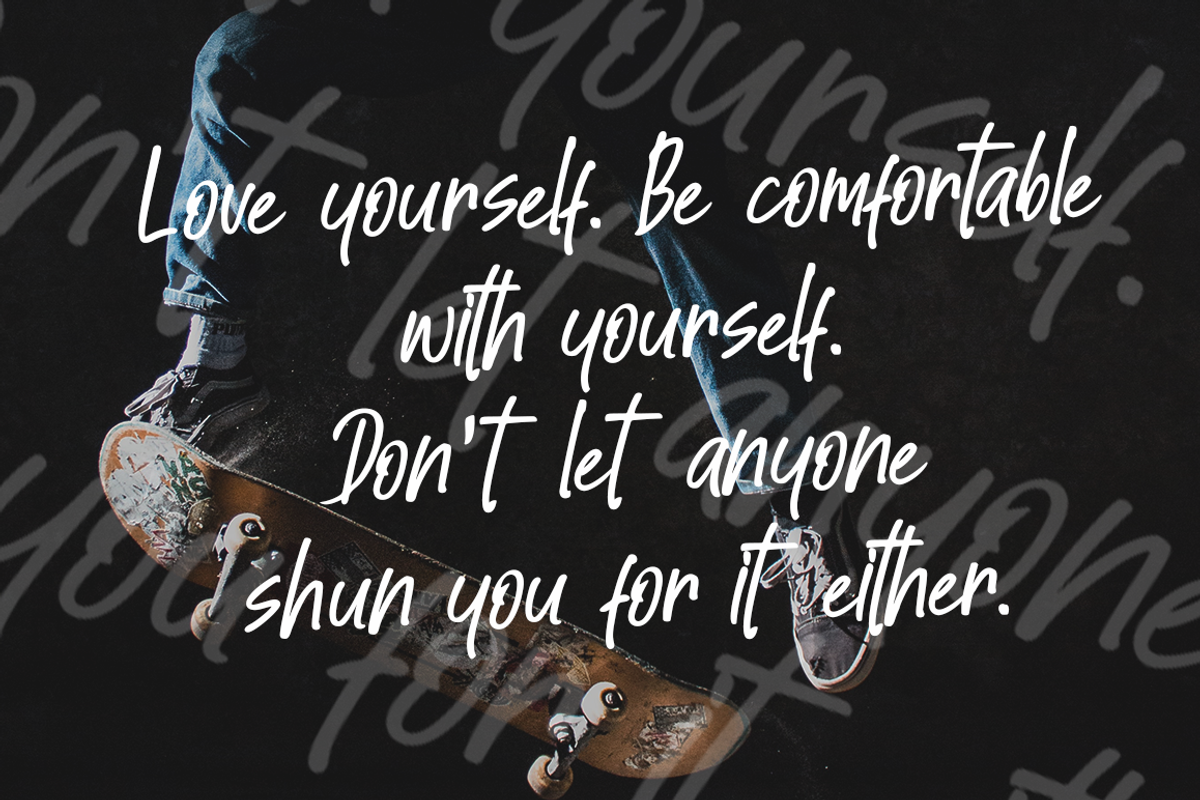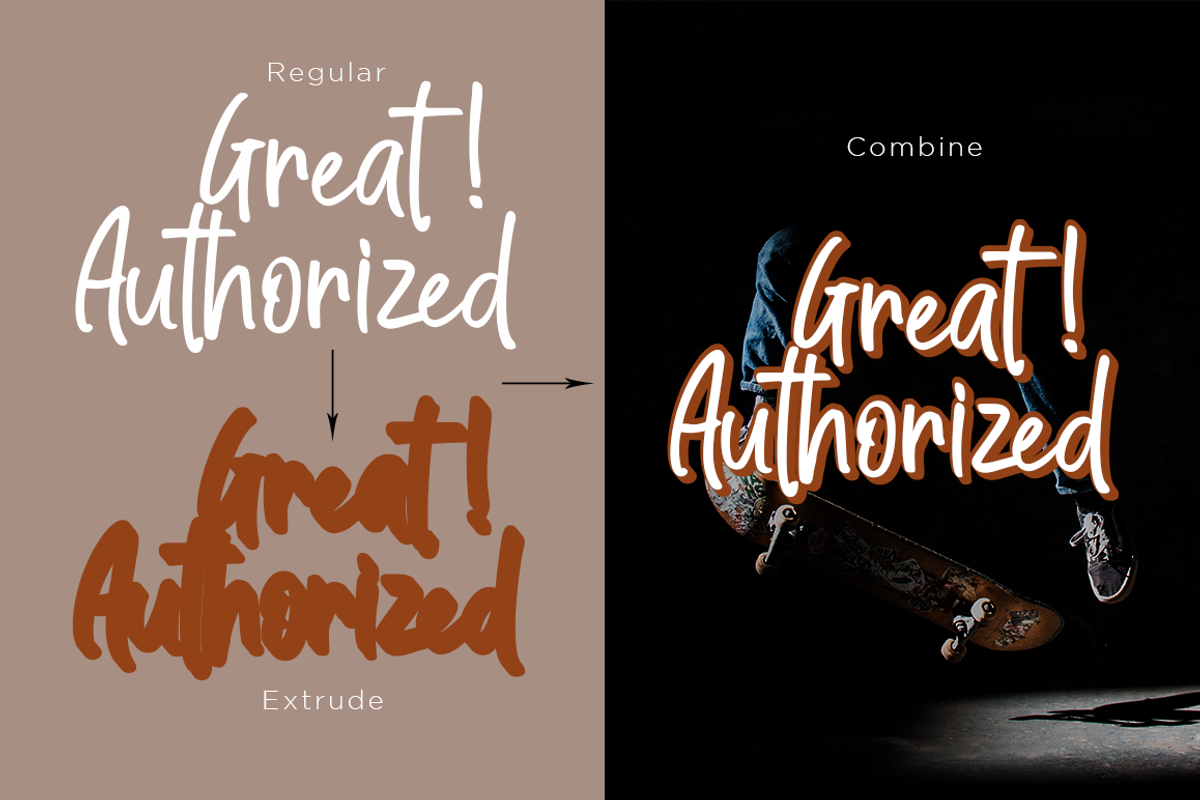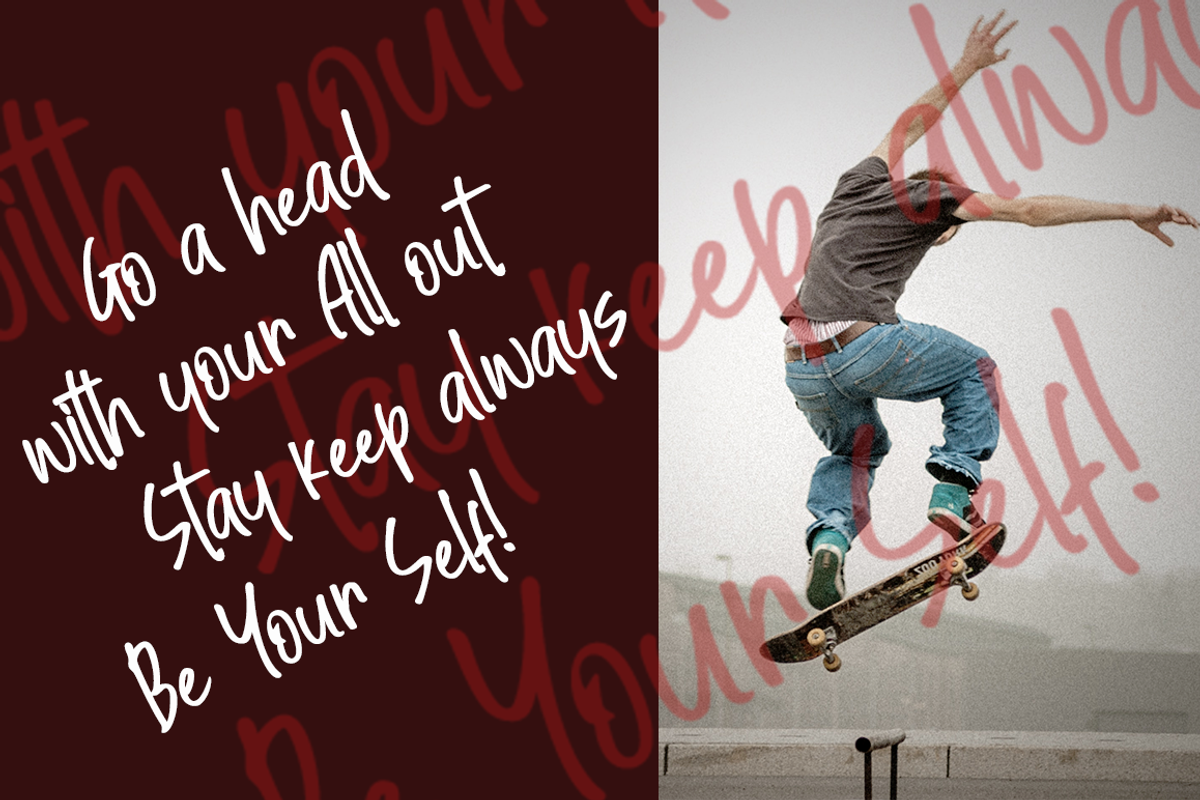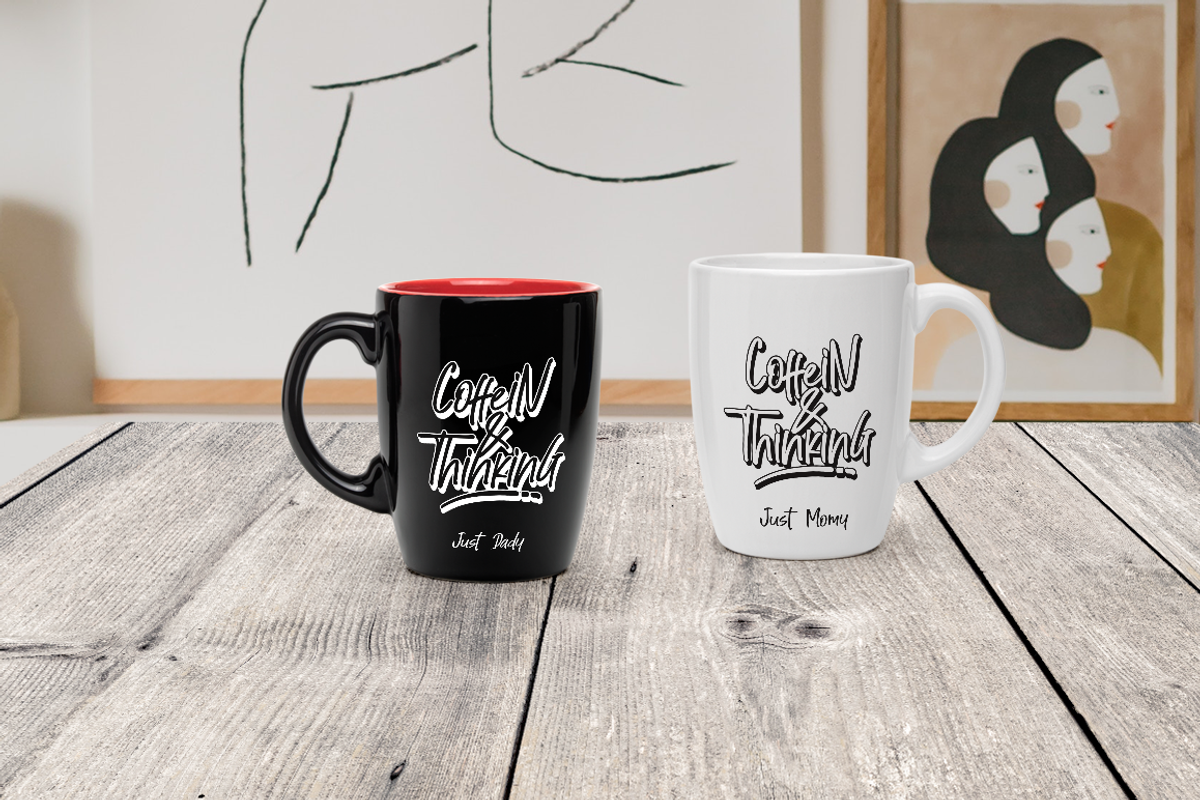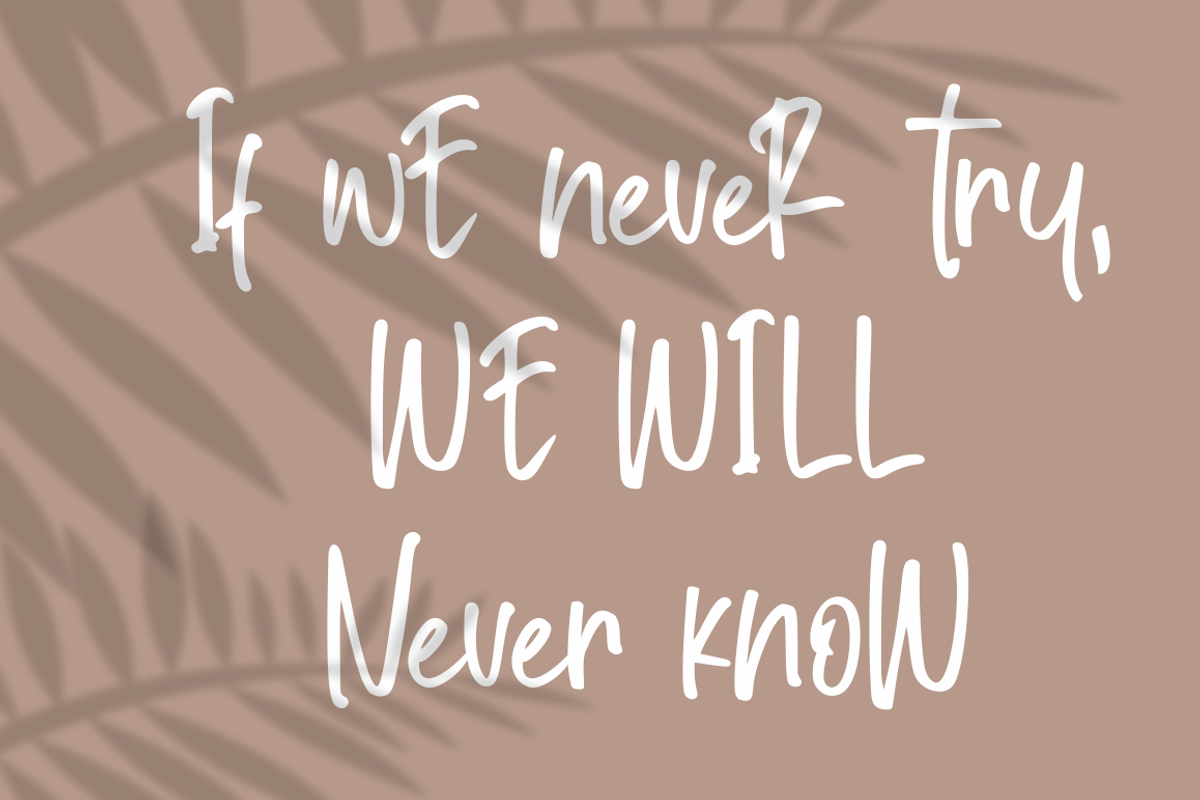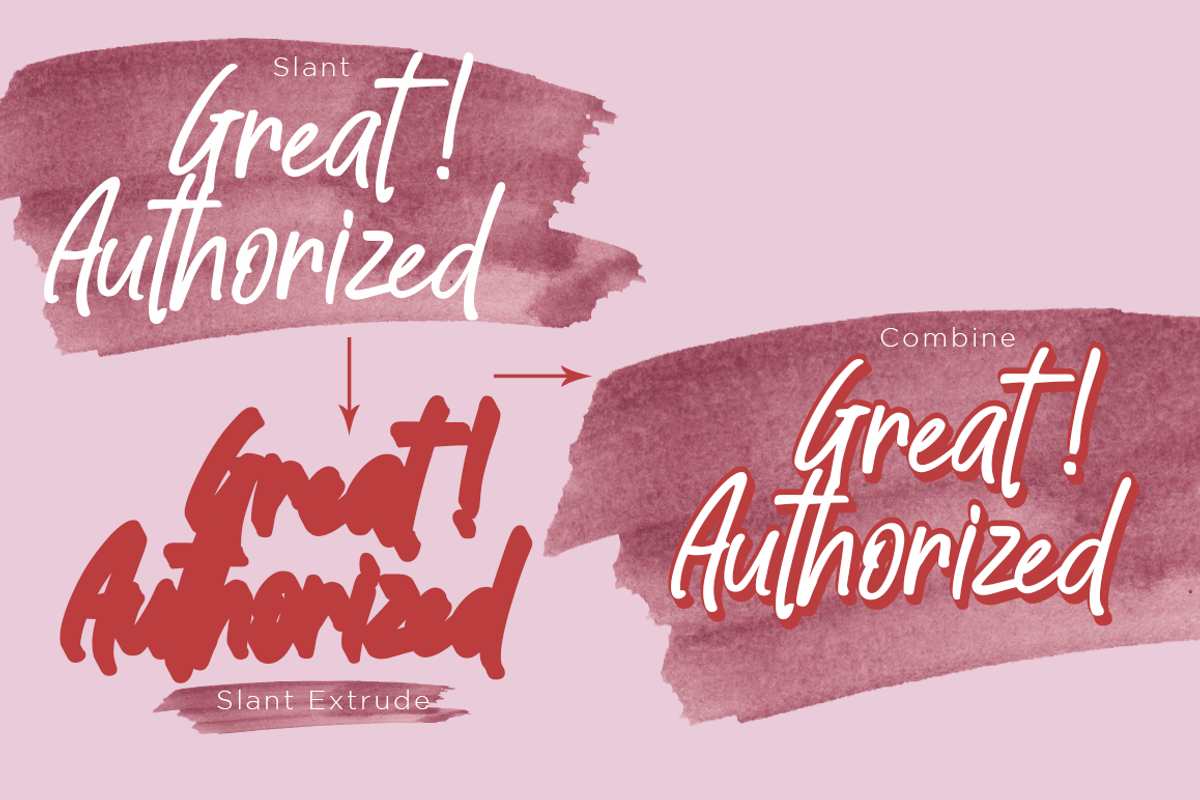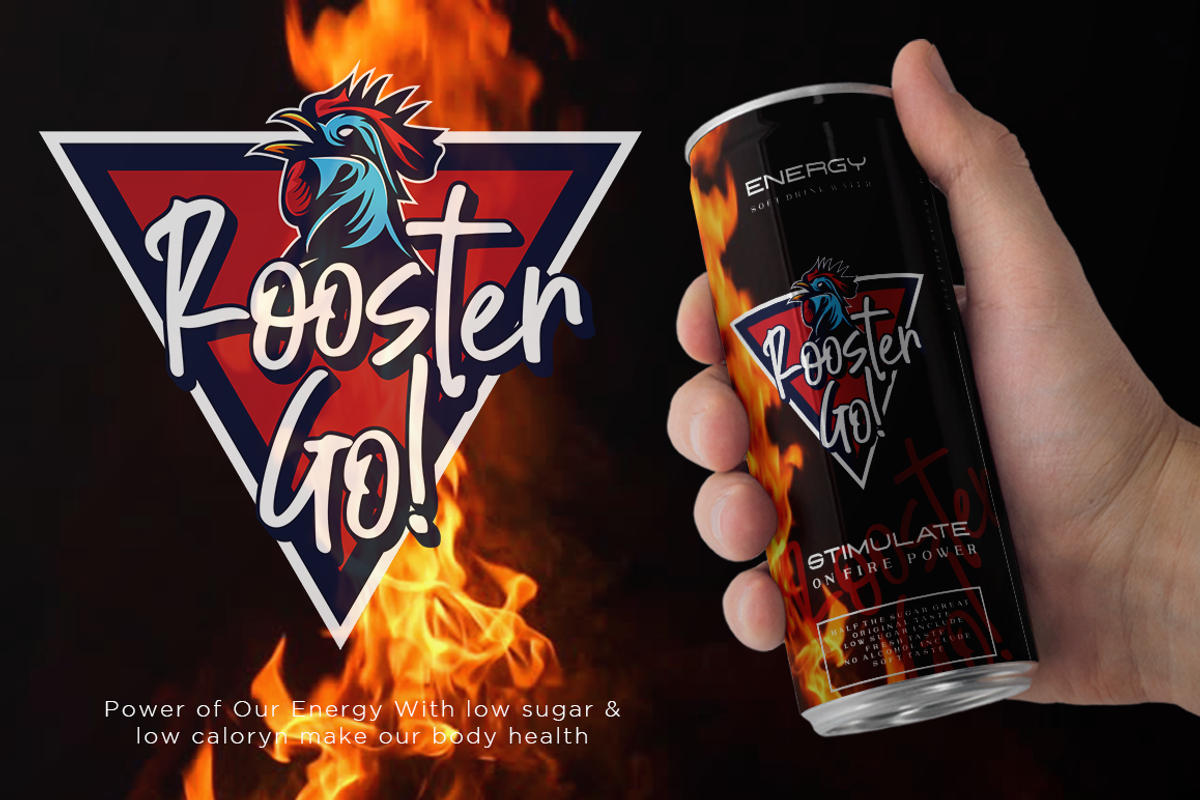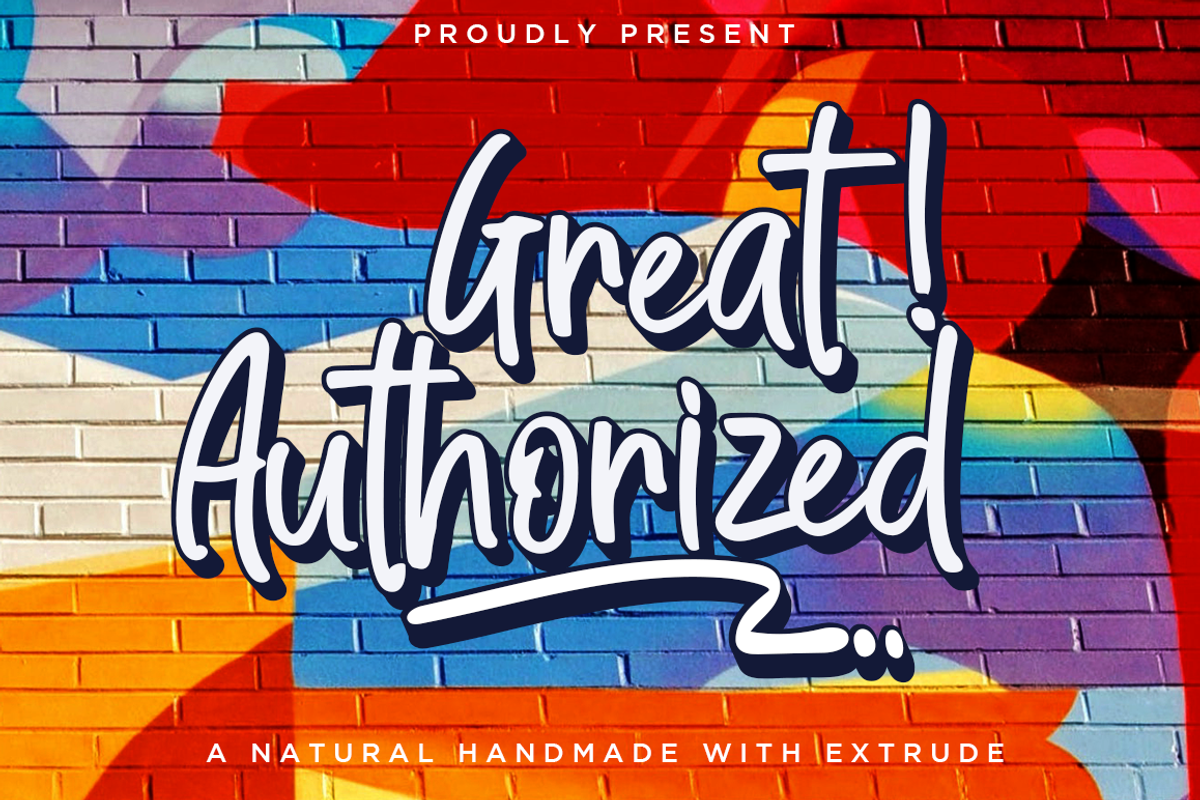
Great Authorized / Handmade Font
In this case I would like to present my new collection font with handmade style. Great Authorized comes with natural taste of handwritten. with the real hand done I created them.
When you type with this font, I believe you will enjoy the sensation of the natural feel of this font, equipped with swashes and extrude features make the display even stronger for your projects such as posters, logos, advertisements, book covers and all brands for your requirement.
- Numbers + Punctuation
- Non-English support
- Extrude